Welcome to Noise
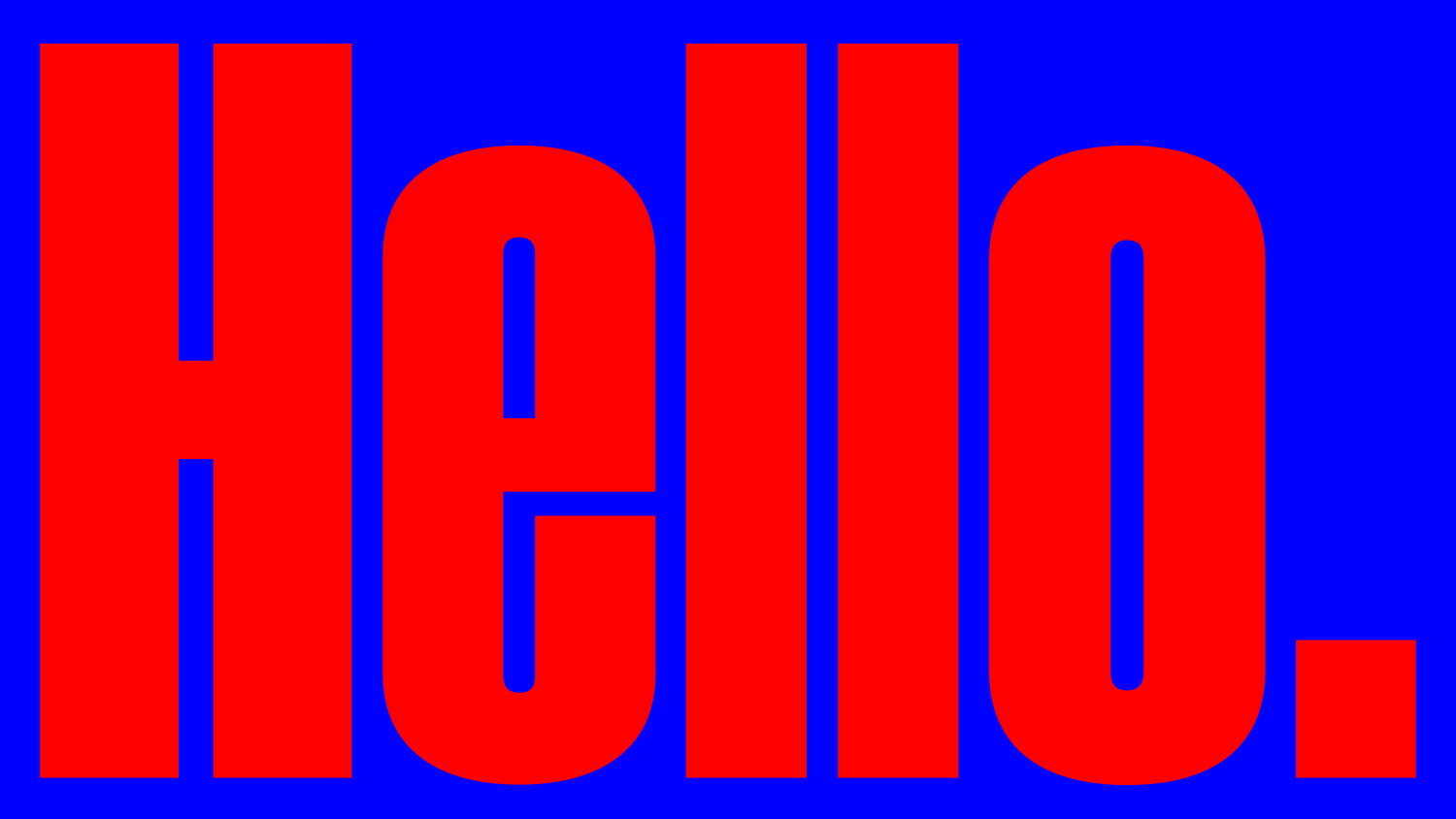
Introducing Exact
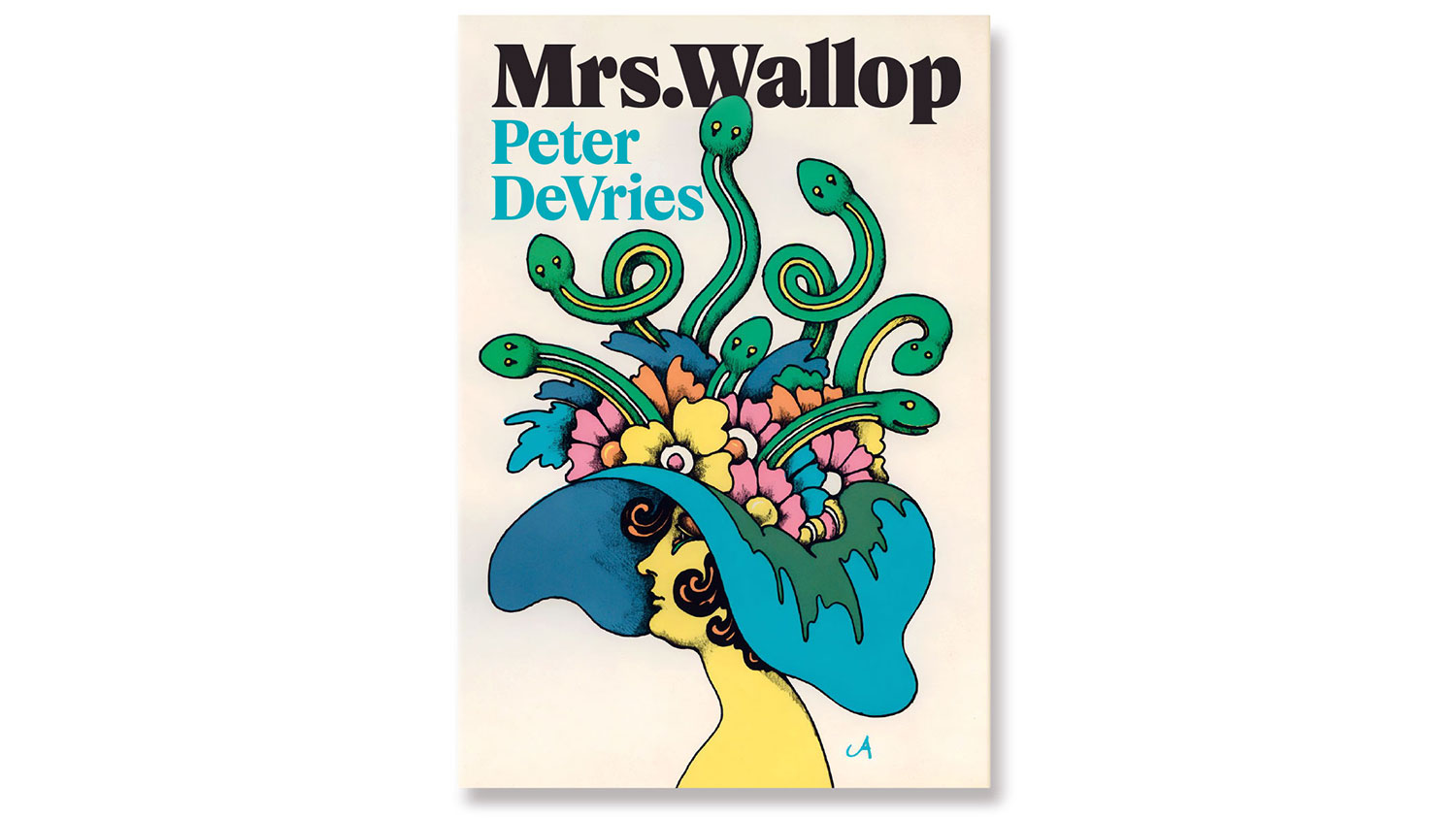
Exact, my reconsideration of the dourly ubiquitous Times New Roman, is finally live. The bold weights have a bit of 70s funk, and the light weights are a bit Olive Oyl, but fear not, the Regular is as prissy and straight-laced and generally TNR as anyone could wish. The name is a nod to my youthful days of kerning Typositor type with an X-Acto knife. Many thanks to Sebastian Carewe for font engineering and design support. Take a closer look. →
Two ISTD awards for the Irish Independent rebrand
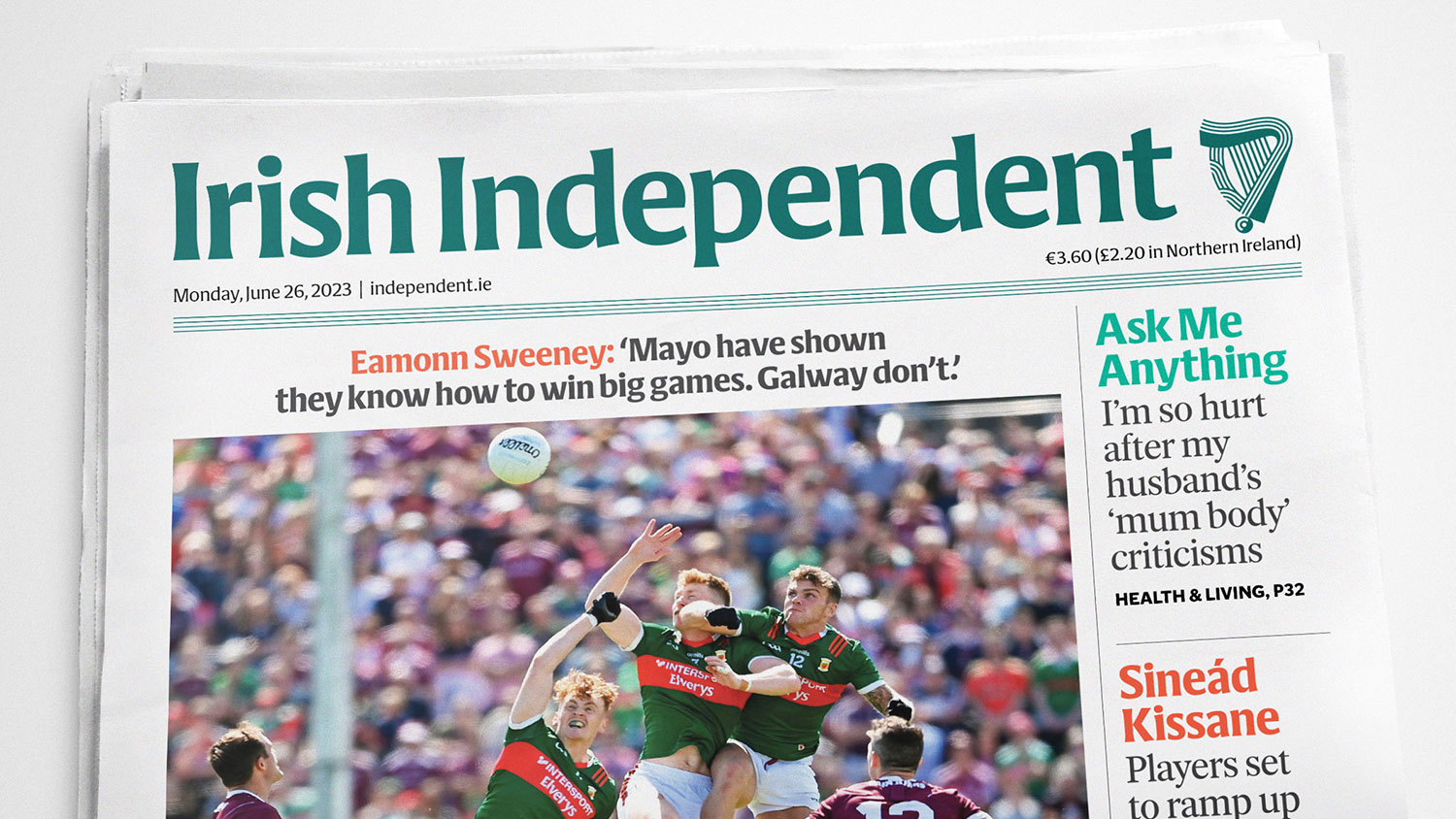
When I moved to Dublin from NYC 11 years ago, I told my Irish wife I wouldn’t feel properly at home until someone paid me to draw a harp. And now someone has. Mark Porter Associates tapped Signal and Clare Bell to help them rebrand the Irish Independent, Ireland’s largest-circulation newspaper, which was reinventing itself as a multi-channel news source. In September, the team went to Brighton to pick up a couple of International Society of Typographic Designers Awards for the work: one for the rebrand as a whole, and another for the four-weight bespoke face I drew for it, Cláirseach (Irish for harp). Signal also snagged an ISTD award for our 2023 poster. Read more. →
New for Mortise: italics
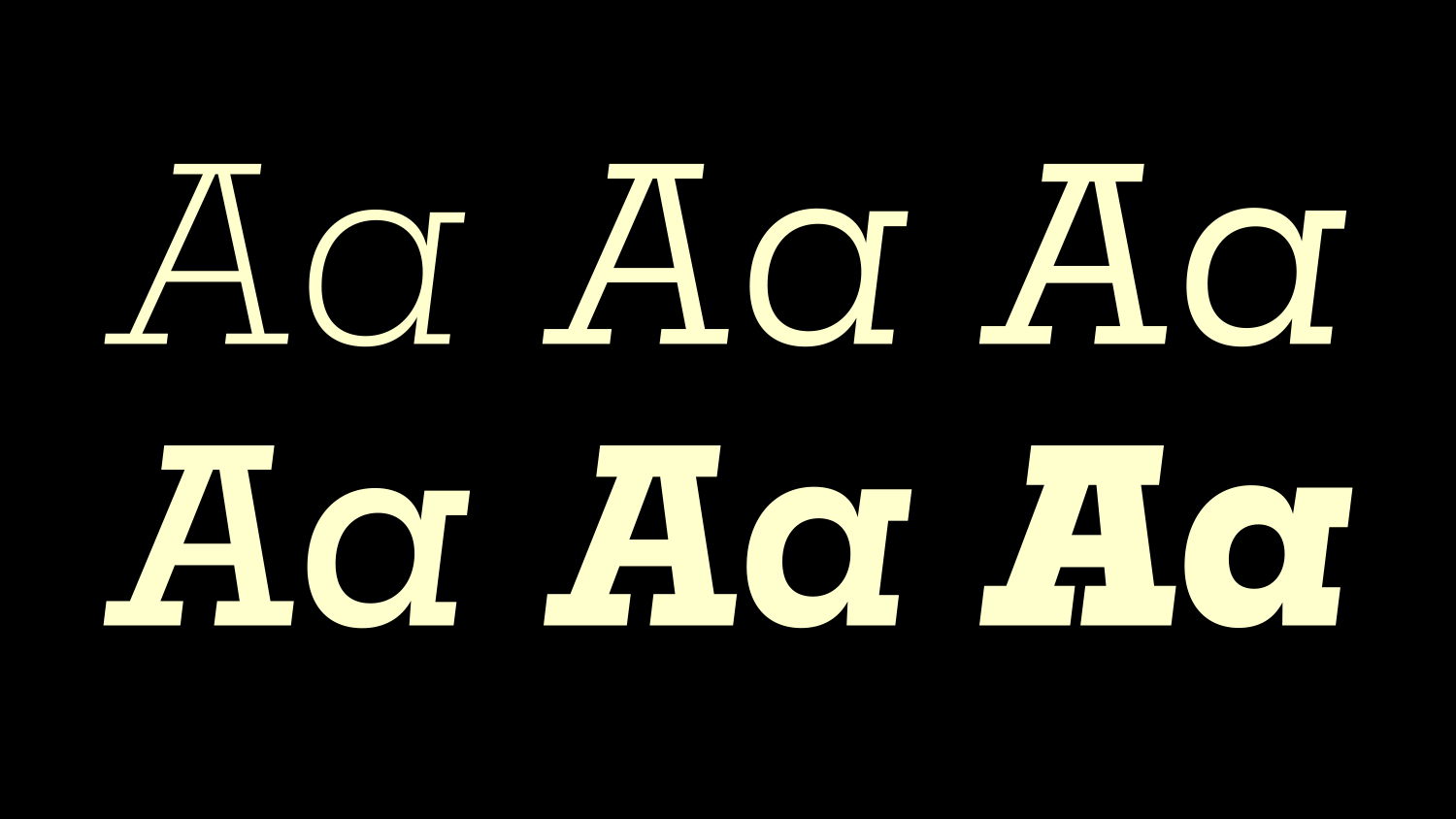
What do you give the slab-serif family that has everything but italics? Italics. And about time, too. Font engineering and design support by Sebastian Carewe. Full showings here. →
eir sans for TBWA/Worldwide
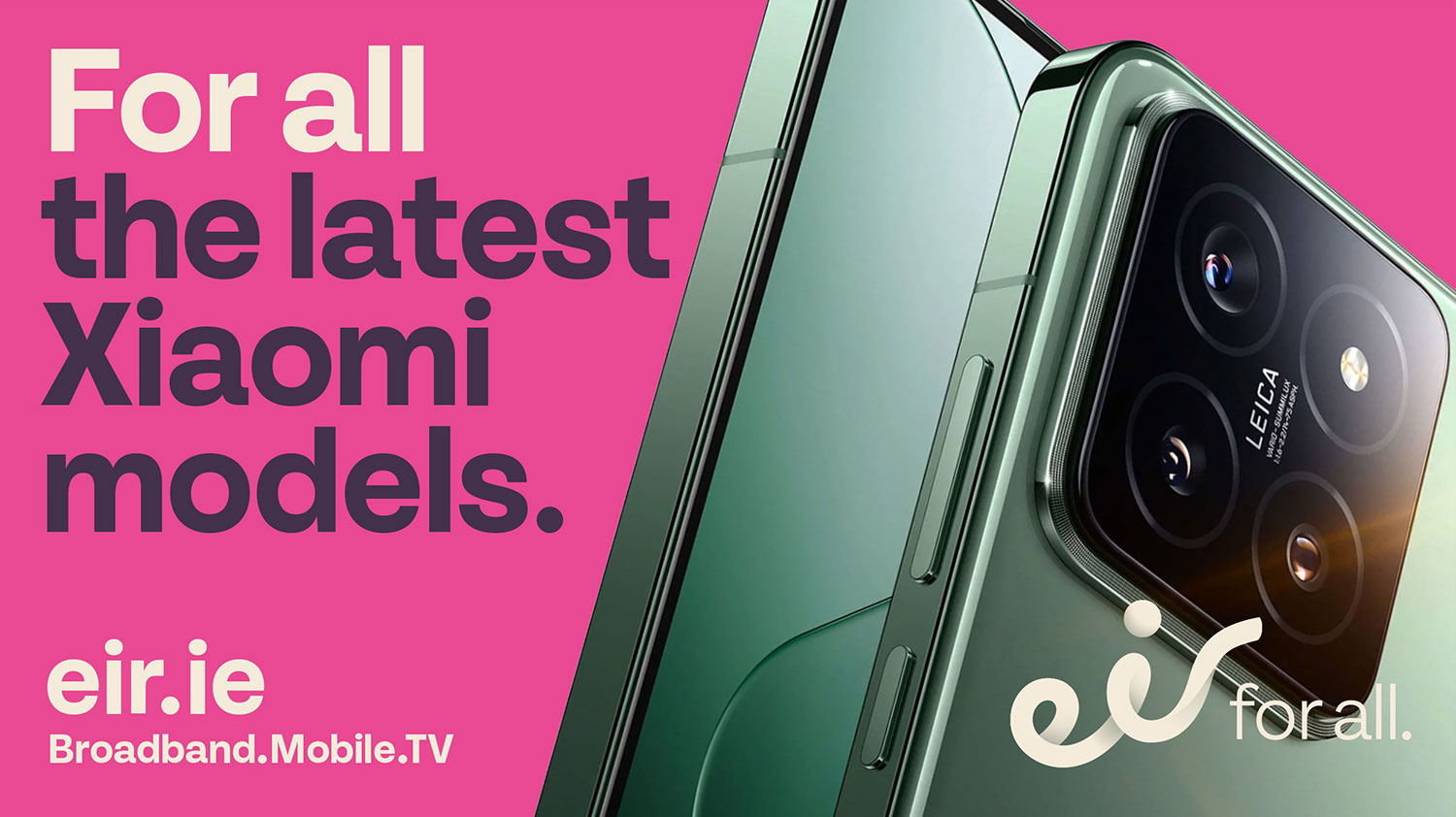
As part of eir’s recent brand refresh, Fionán Healy and Robert Boyle at TBWA hired us to create a custom version of our Tenon typeface: clear, sturdy, open, and with horizontal terminals to suggest the speed of Ireland’s leading broadband provider. (The source face, Tenon, was designed in collaboration with my old comrade in arms Seán Mongey at Post Studio.) eir sans includes three weights and forms one of the main elements in a new nationwide integrated campaign: eir for all. Here’s the case study. →
Glammo is live
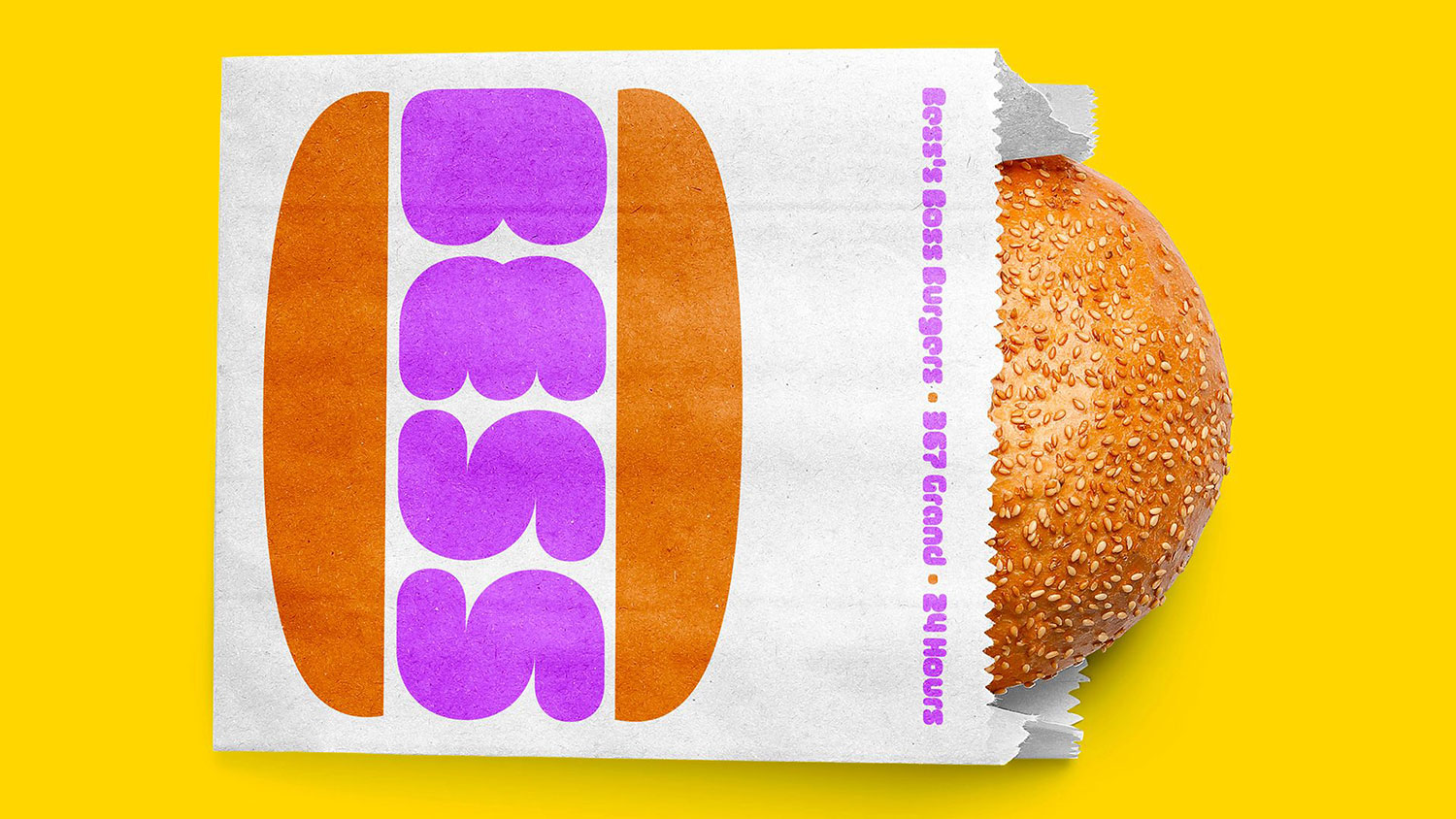
Originally designed for the Dublin Bowie Festival, Glammo is a modular, grid-based, retrofuturistic typeface that blends references to techno, AKIRA, and the Designers Republic. Inspired by 90s culture (Black Tie White Noise) but with faintly psychedelic roots, its bold shapes are best used in short, high-impact bursts. More techno-glam here. →
Ballinger speaks Greek
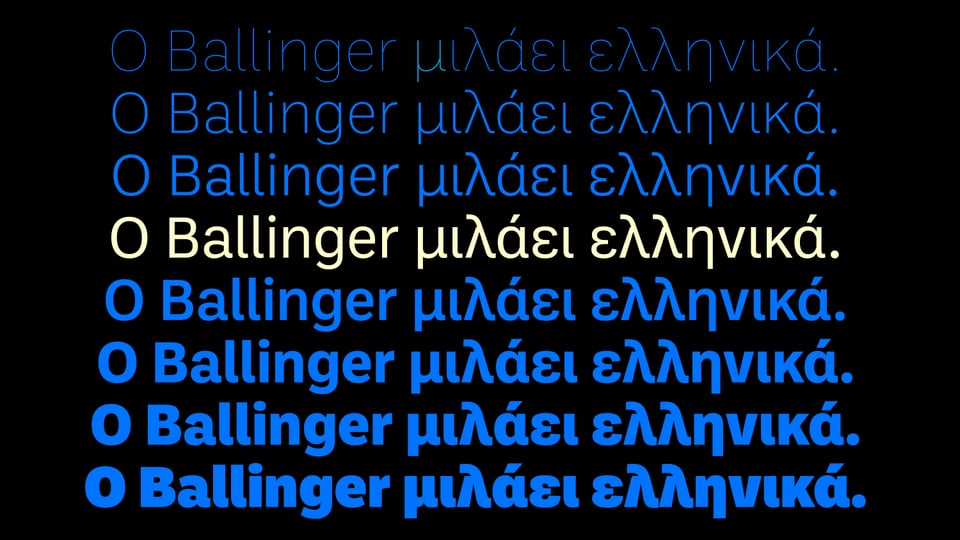
Delighted to announce that our oldest superfamily now supports the language of Aristotle, Sappho, and Yanni, along with Cyrillic, Vietnamese and over 150 Latin-script languages. Many thanks to Panos Haratzopoulos for expert consultation. See the full Ballinger family. →
Signal trial fonts are now full-featured
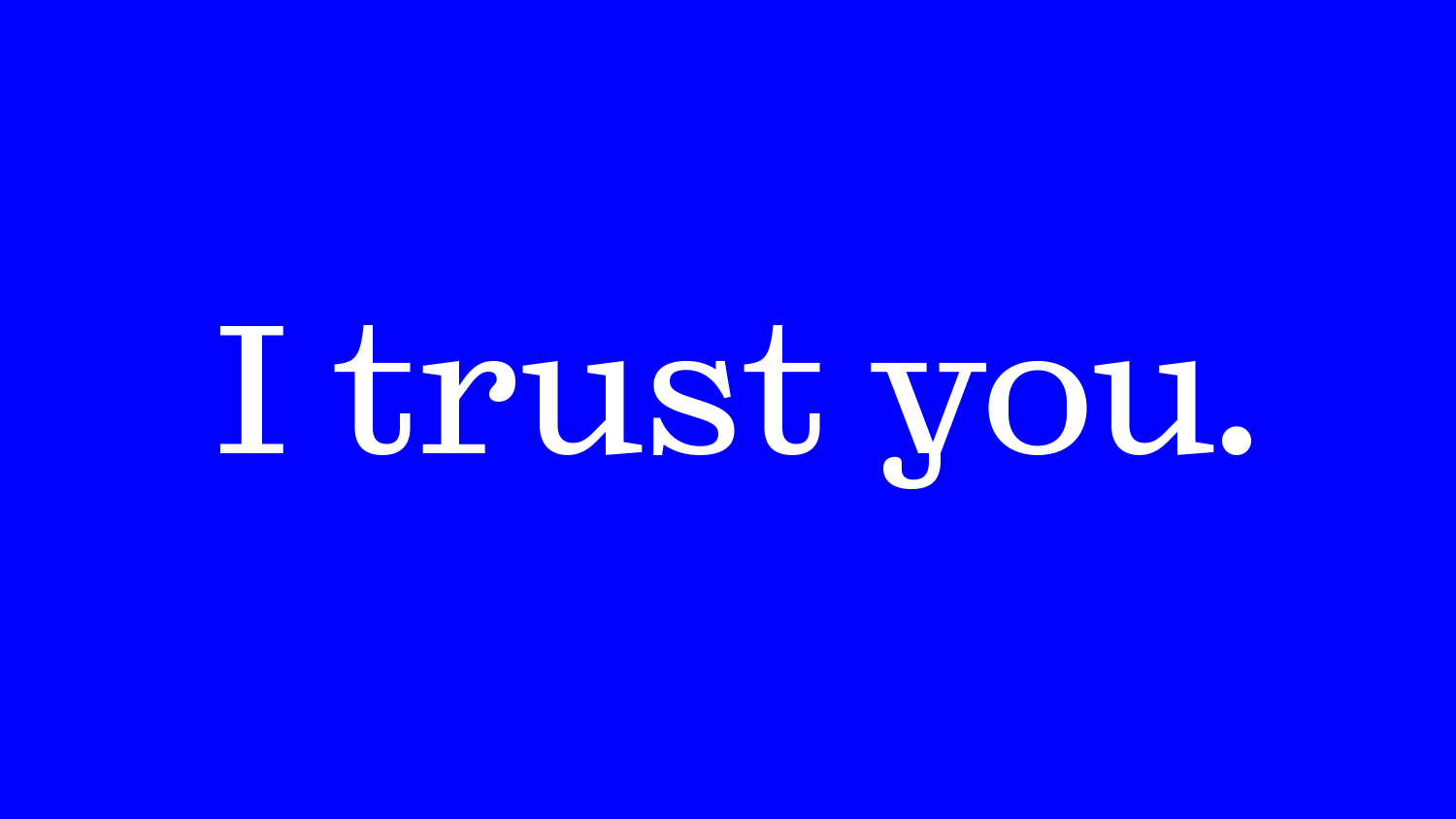
If you make fonts, people are going to steal them.
That’s a fact of the business, and it doesn’t worry me. We make type for people who know and care about type, and good typographers don’t tend to work with pirated fonts, any more than good carpenters tend to work with stolen lumber. Folks who pirate our stuff don’t represent lost sales. They were never going to be our customers anyway.
So I’ve decided to stop subsetting Signal’s trial fonts. The new batch have complete glyph sets and working OT features. You can use them for mockups and prototypes without worrying about .notdefs popping up all over the place. Onces the design’s approved, you can just license them properly through the site as before. Until then, they’re free, with no obligation. I trust you. →